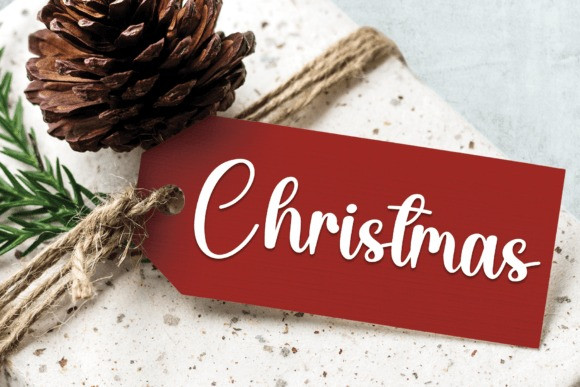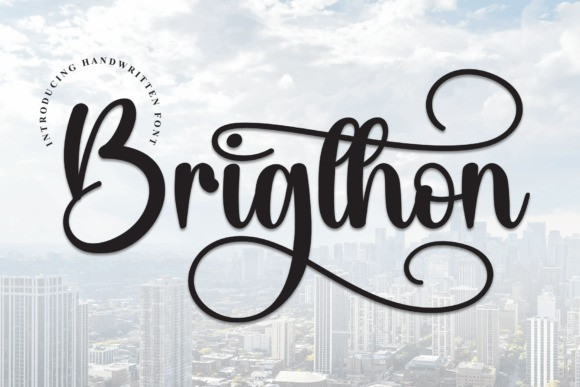
Brigthon Script Font
Brigthon Script Font is a bold, handwritten font that looks like it was created with a marker. Its playful and friendly style makes it great for adding a personal touch to invitations, posters, and other creative projects!